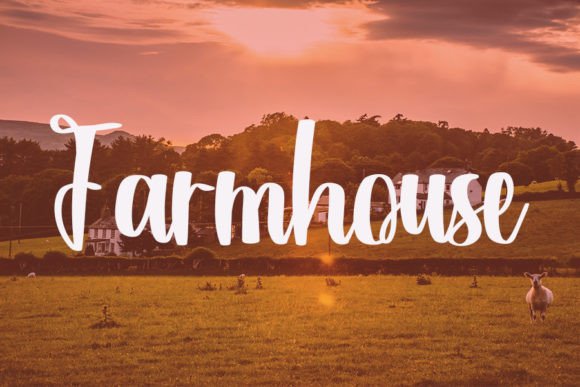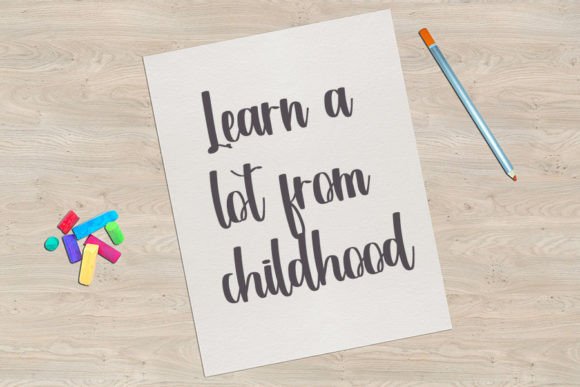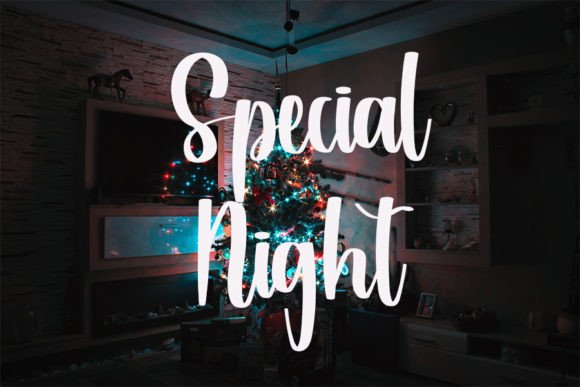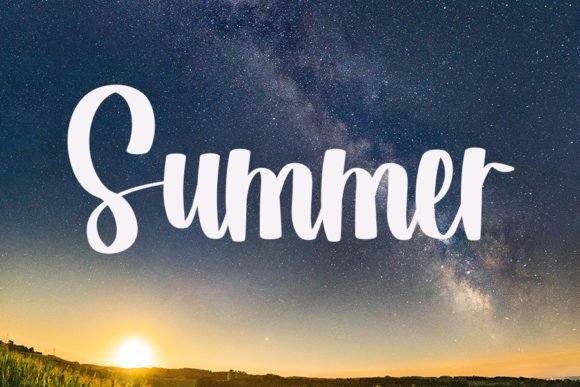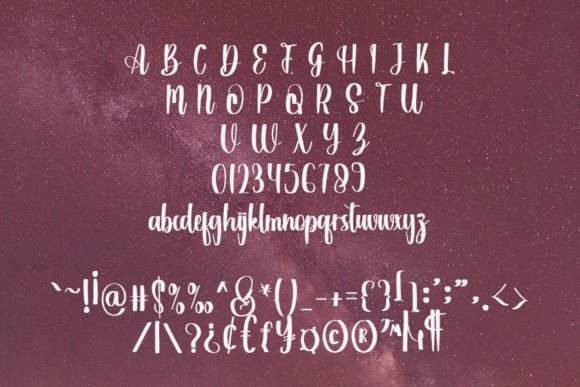
About Butter Font
Butter is a stylish handwritten font that emanates a cool and modern vibe while maintaining a spotless form, drawing inspiration from classic calligraphy. Striking a balance between not being too thin or too thick, Butter presents a varied and balanced design, meticulously crafted to enhance the beauty of your projects.
The cool and modern characteristics of Butter make it a versatile choice suitable for a broad range of creative applications. Whether you’re working on digital or print projects, the font’s spotless form ensures clarity and readability, while its contemporary vibe adds a touch of freshness to your text.
Incorporating elements from classic calligraphy, Butter acquires a timeless and elegant touch. This versatility makes it fitting for various design contexts, spanning from branding and invitations to product packaging and beyond. The balanced and varied forms contribute to a visually engaging aesthetic, allowing Butter to stand out and make a statement in your designs.
Visualize Butter bringing a contemporary and stylish feel to advertising materials or elevating the sophistication of branding projects. Envision it gracing invitations, adding a touch of classic elegance. Whether used in headlines, body text, or other design elements, Butter is meticulously designed to enhance the visual appeal of your projects.
In summary, Butter is more than just a font; it’s a carefully crafted tool meant to enhance the beauty of your designs. Its cool and modern handwritten style, inspired by classic calligraphy, brings a distinctive and stylish touch to your creative endeavors.